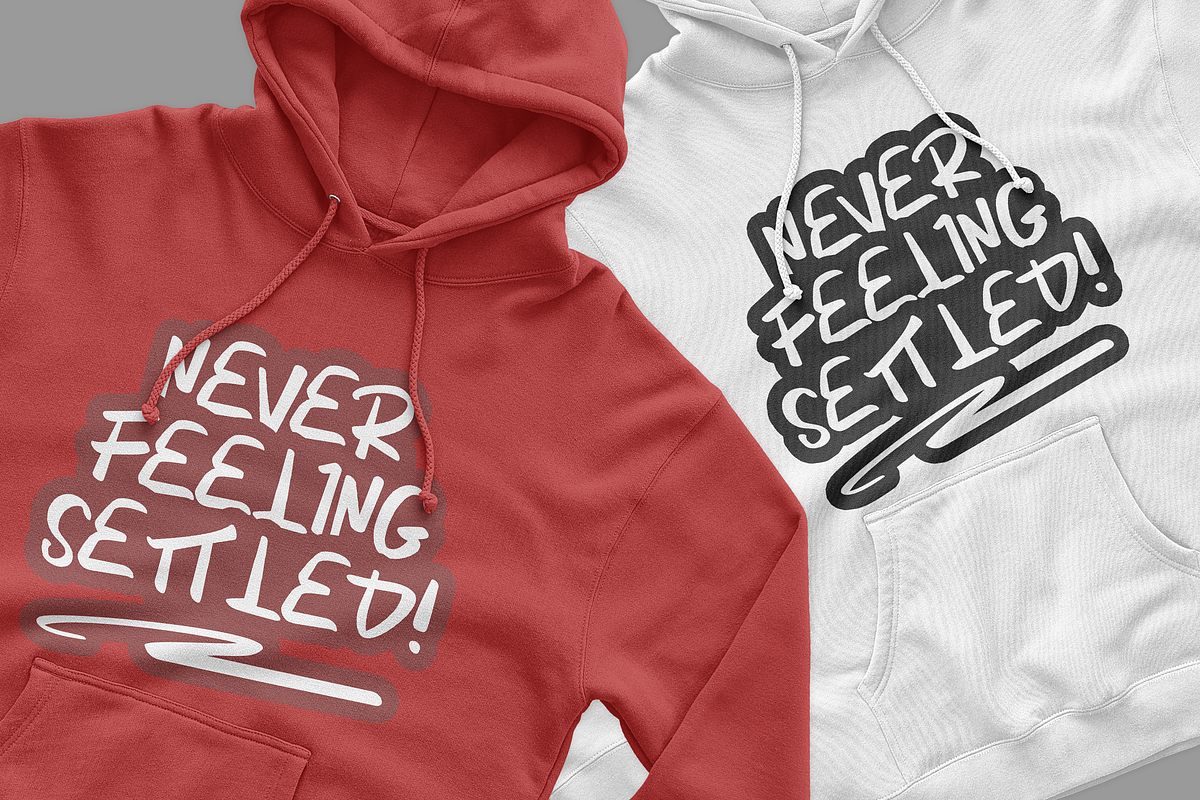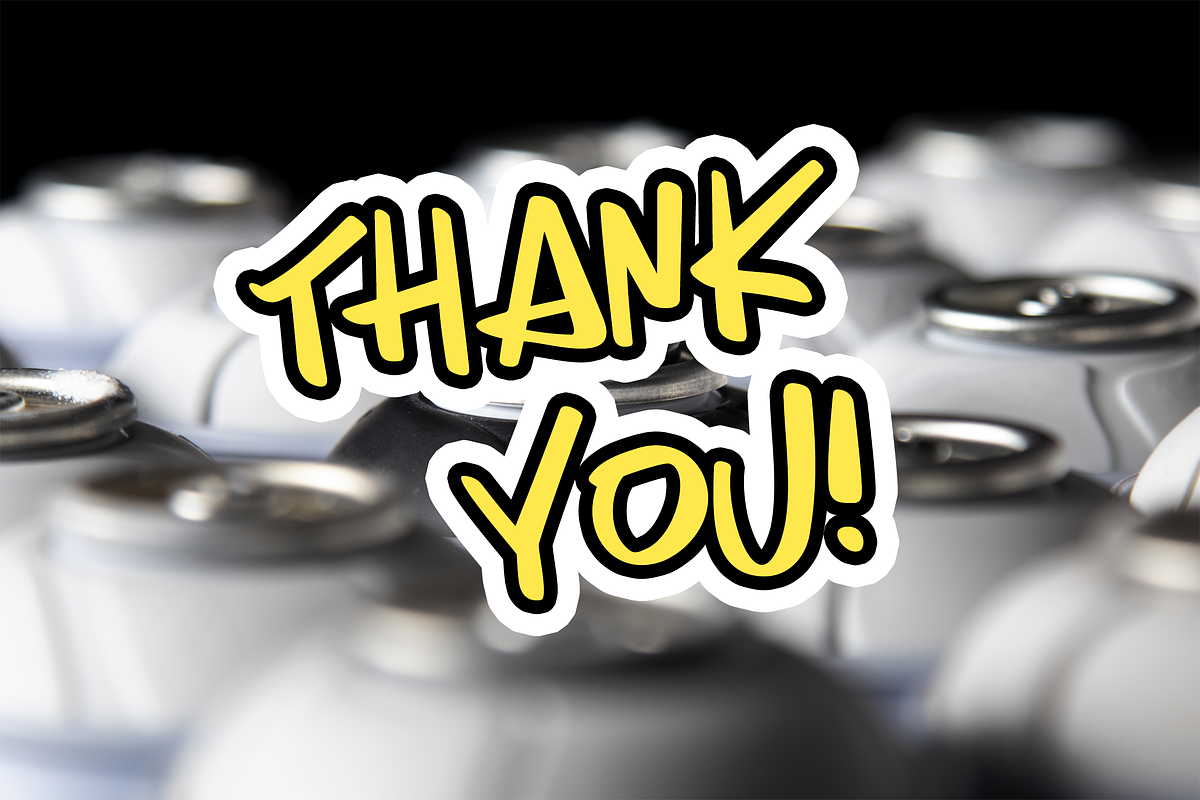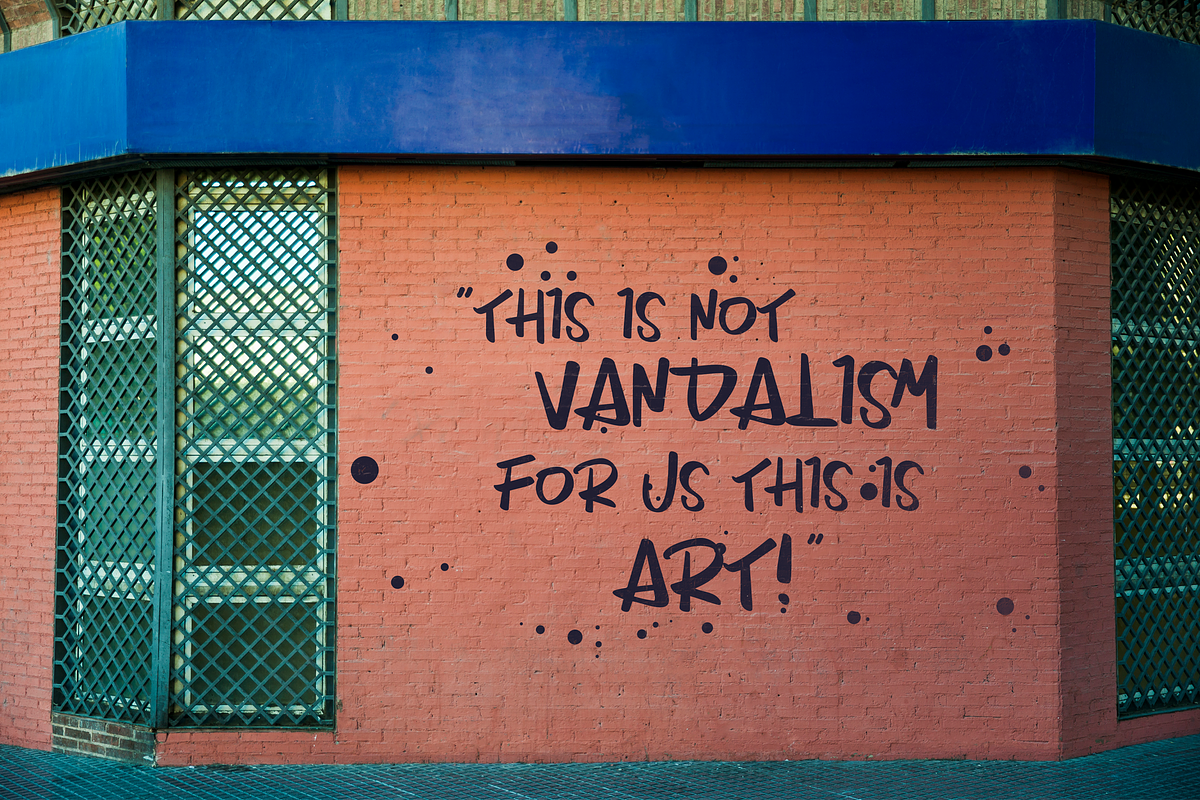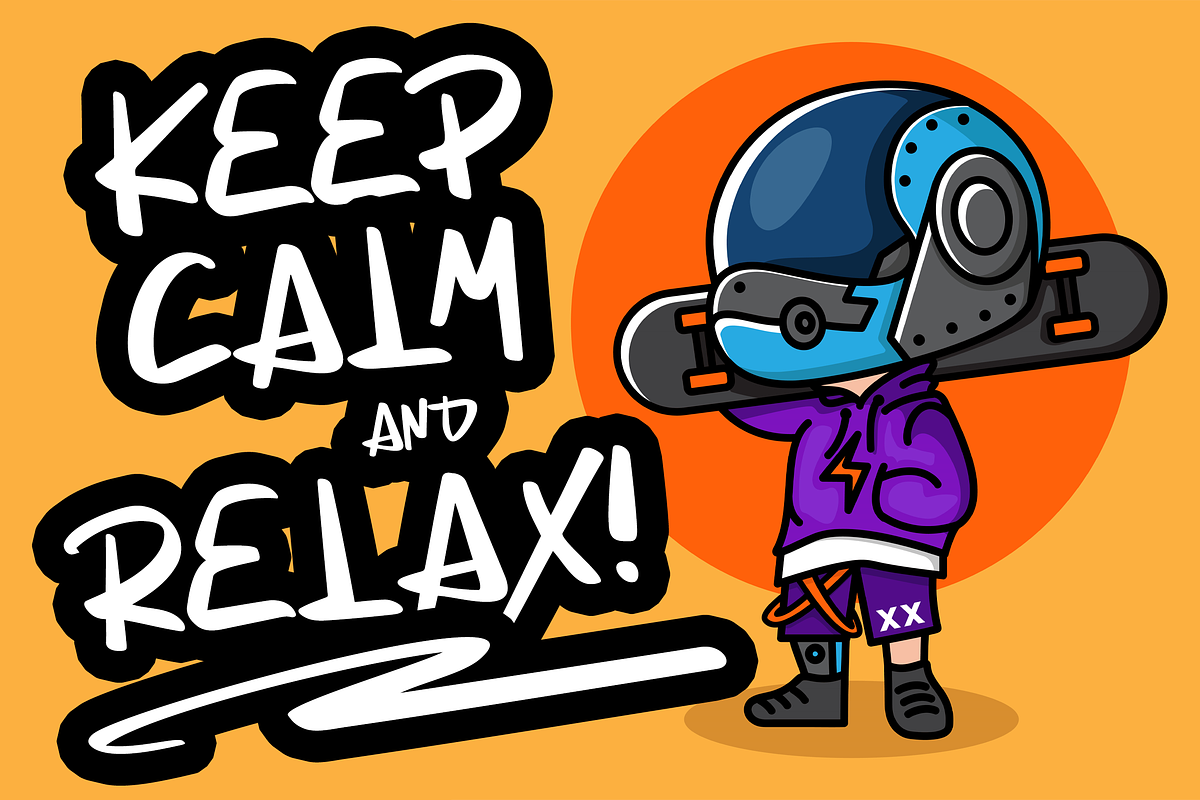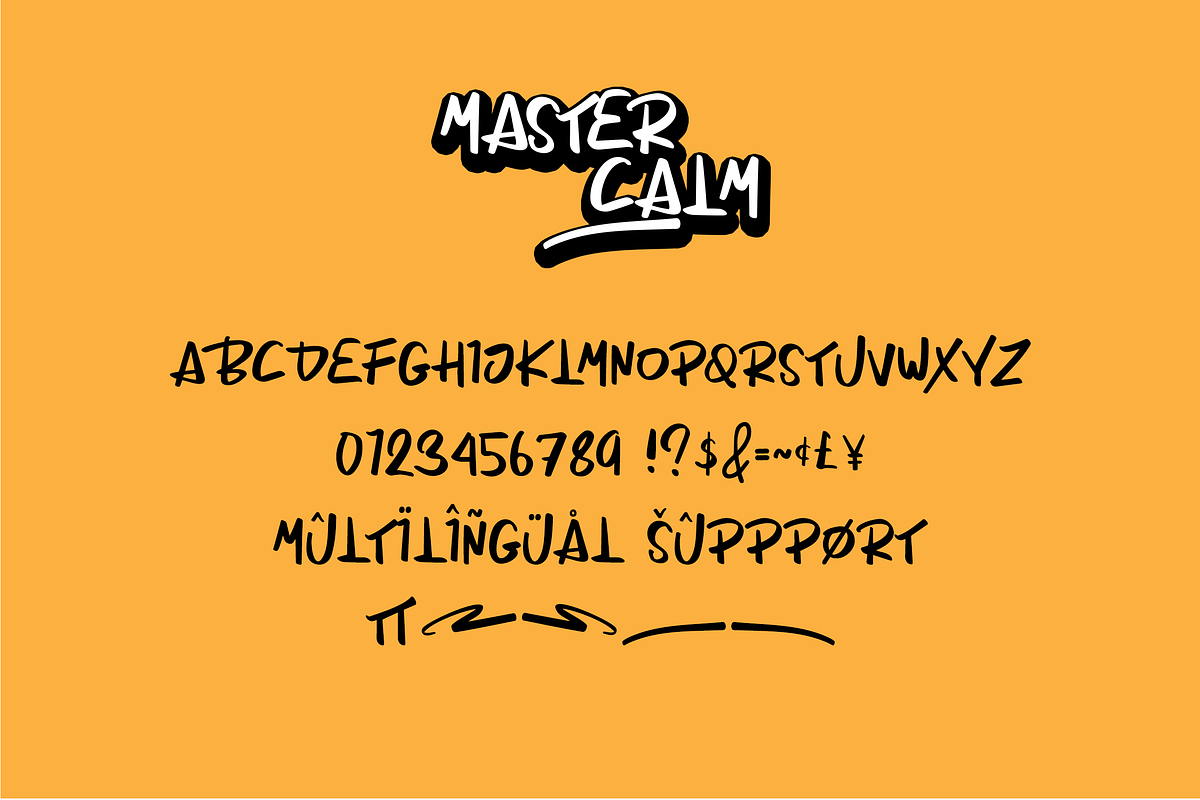
Master Calm | Stylish Graffiti Font
Master Calm is a quirky and awesome graffiti brush font. It has a unique style that makes it perfect for any creative project that requires a graffiti look!
Language Support; It does support basic International Characters